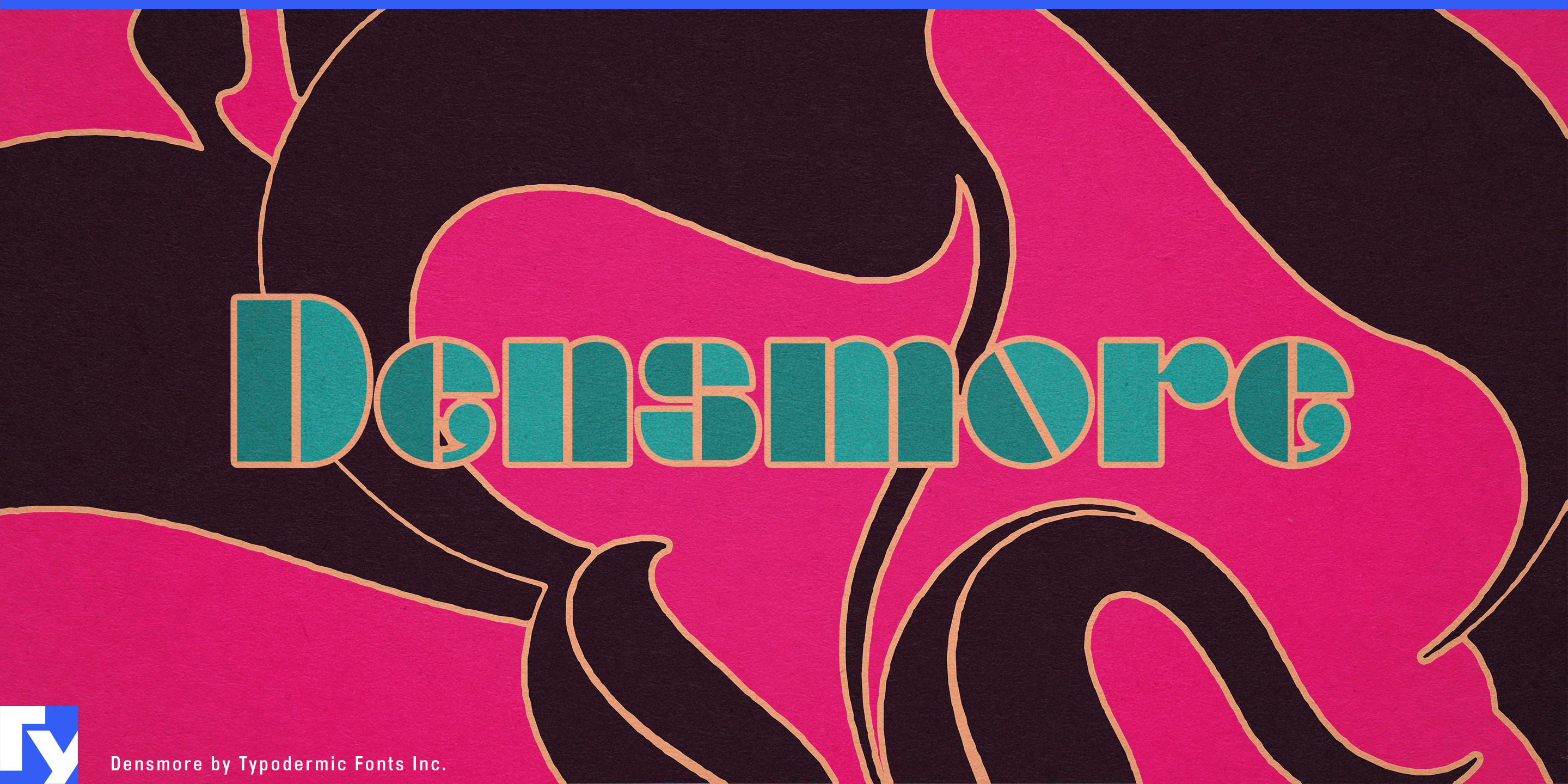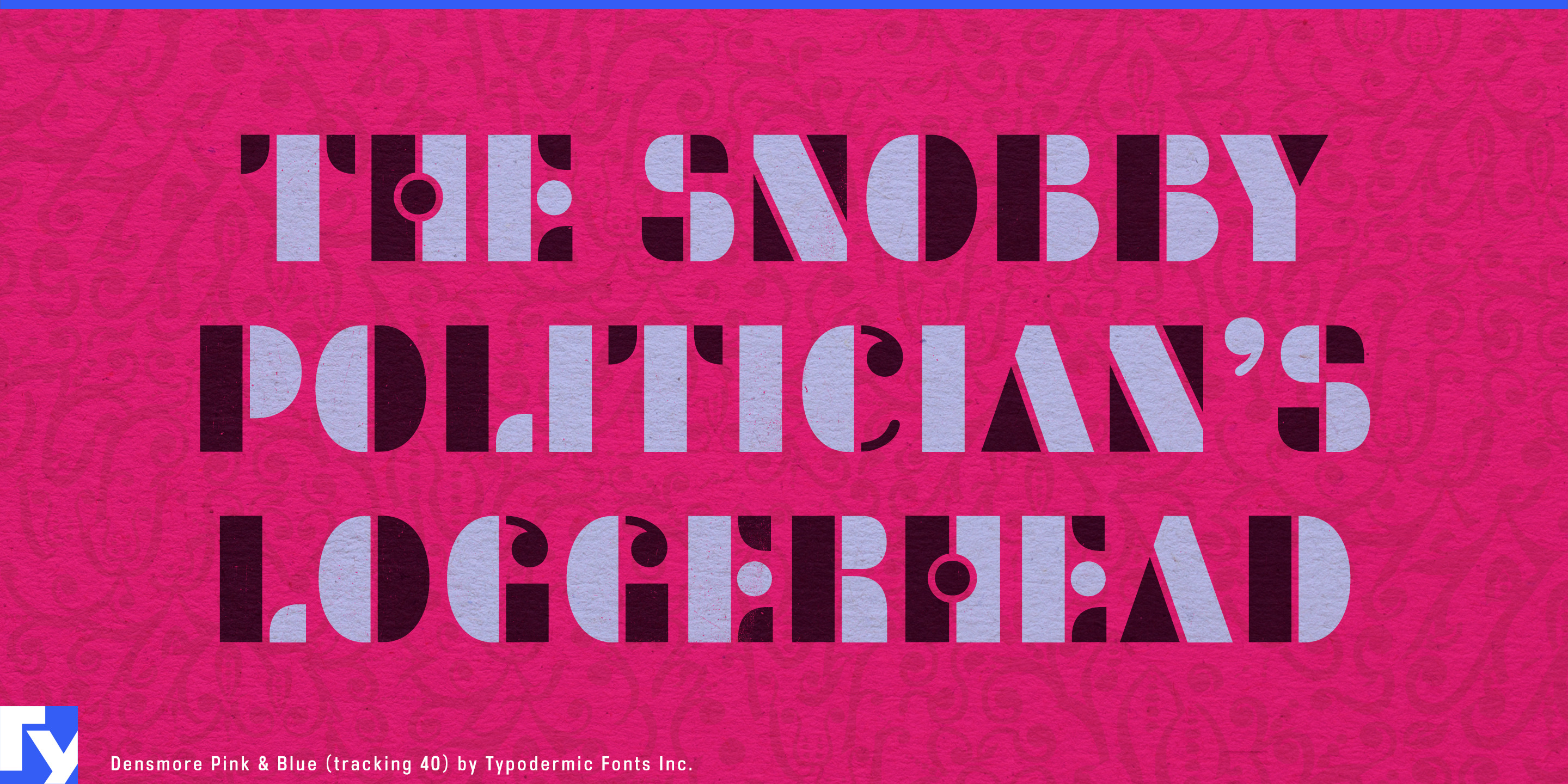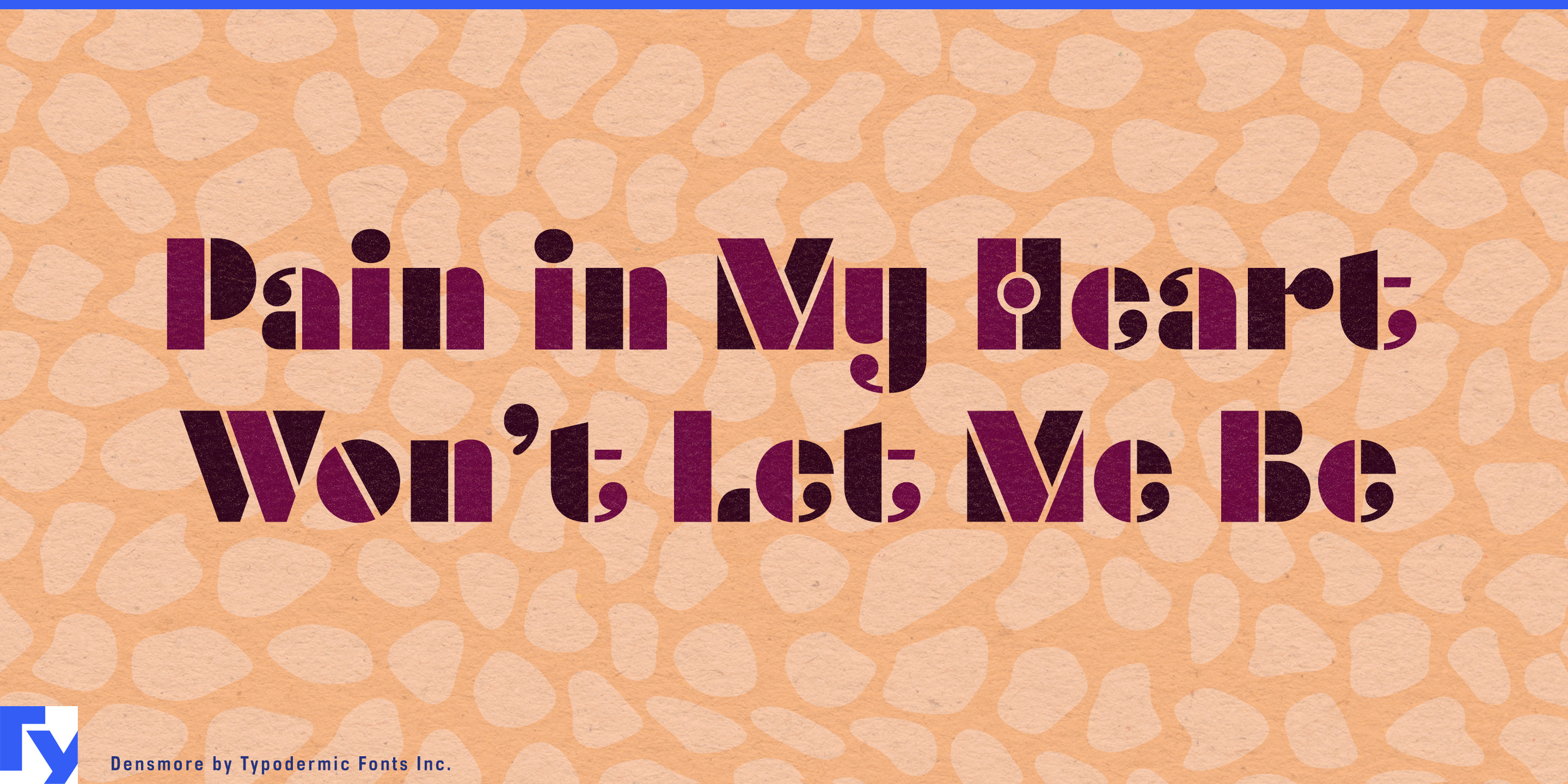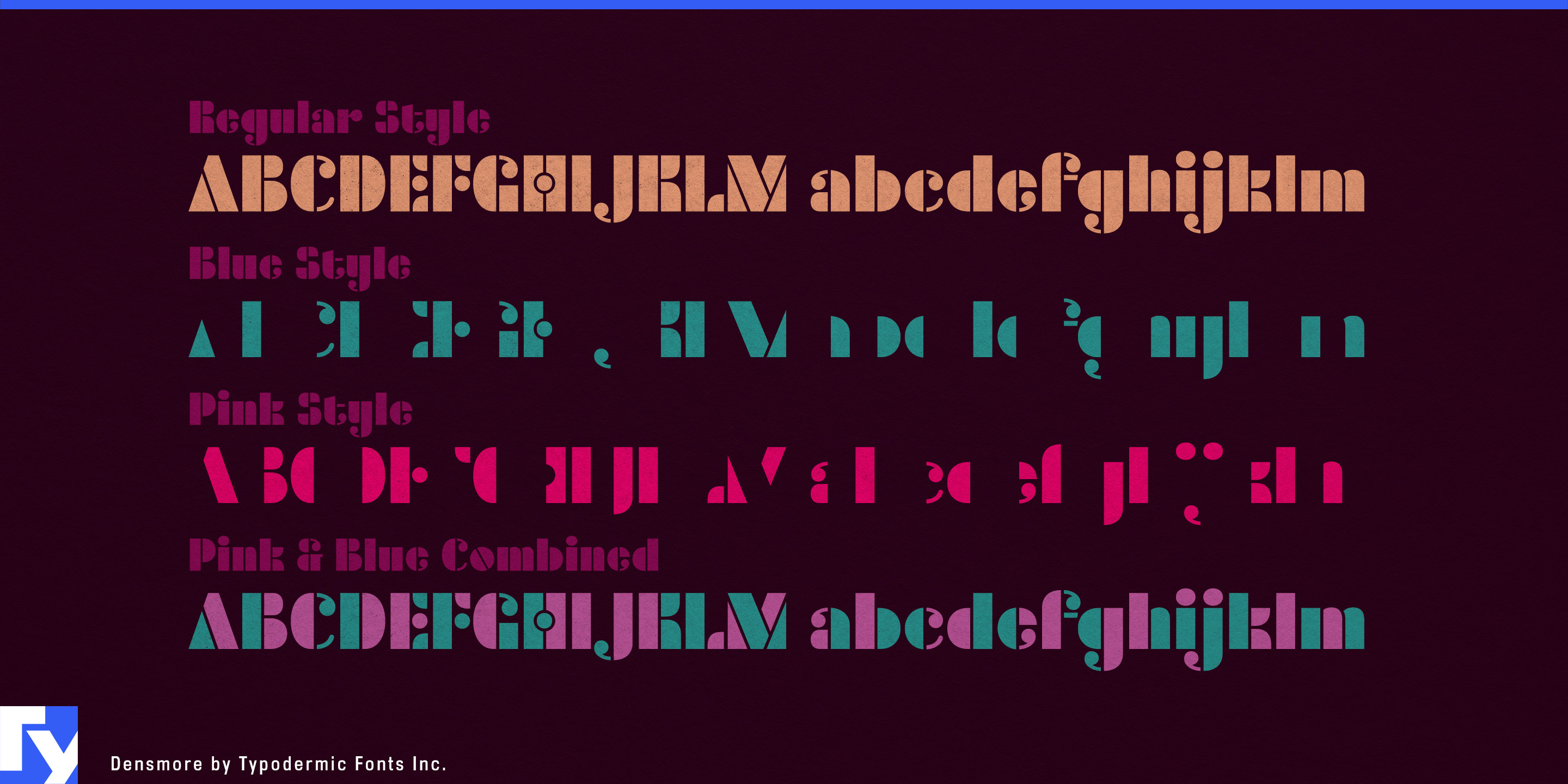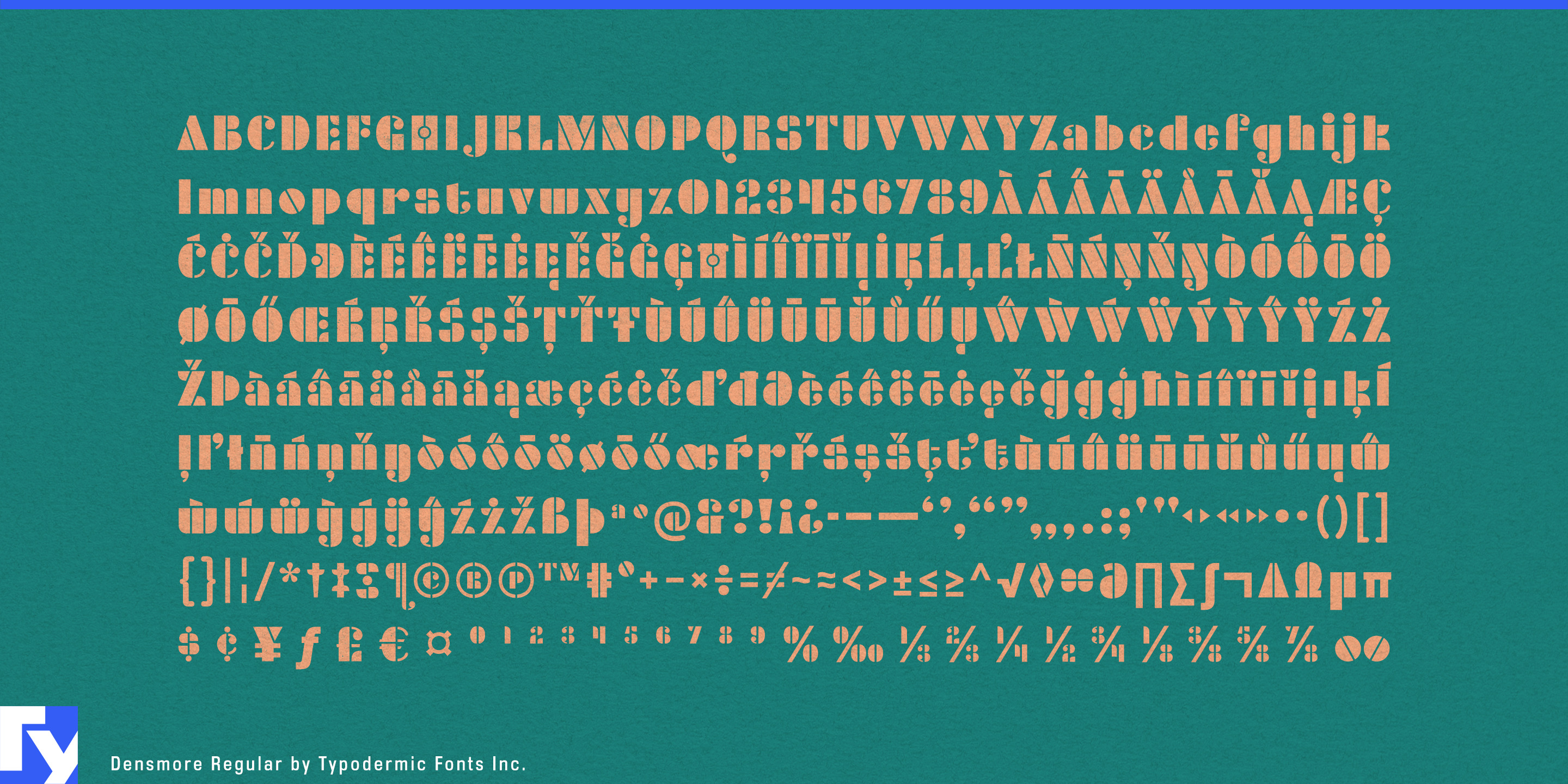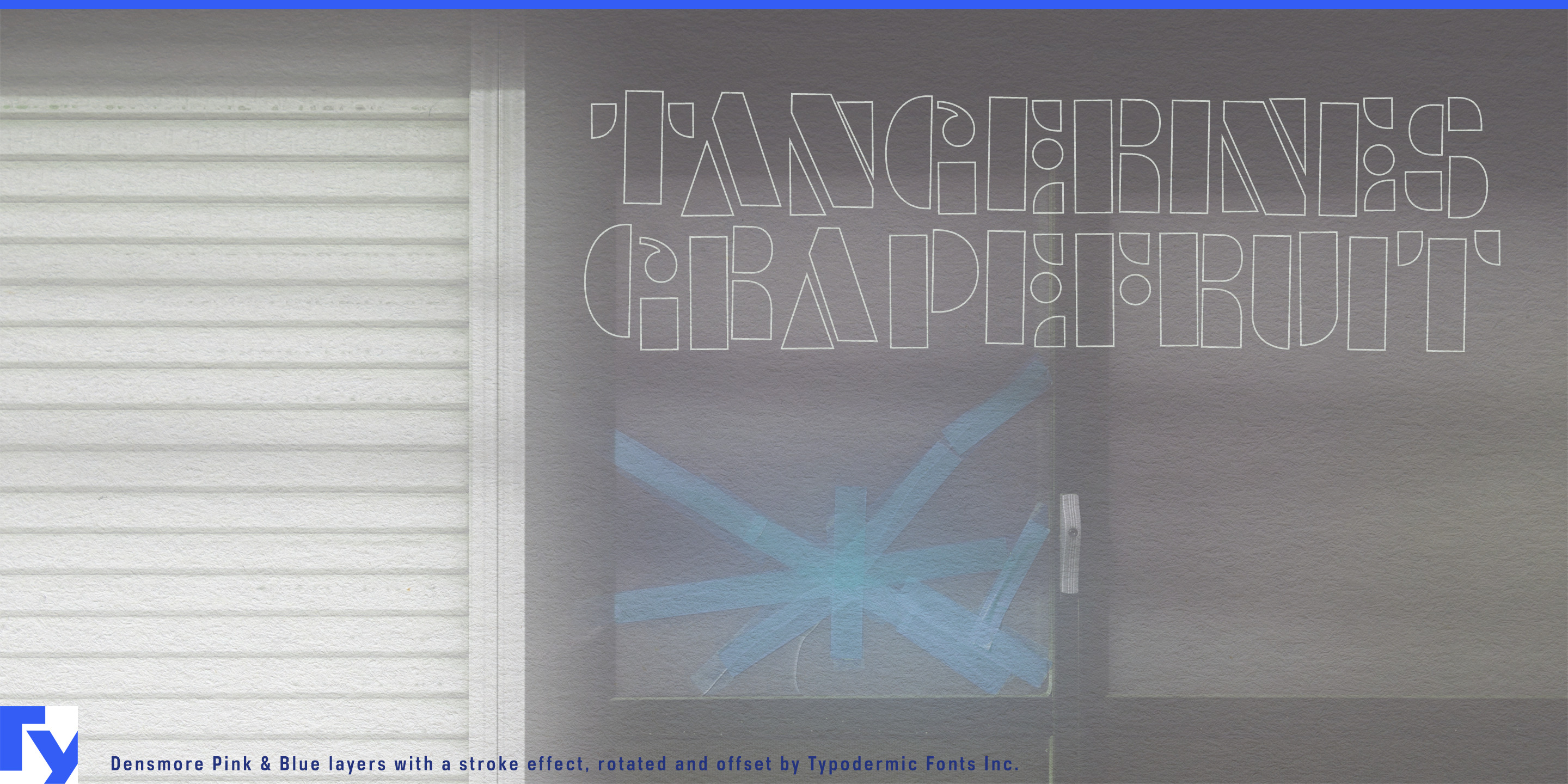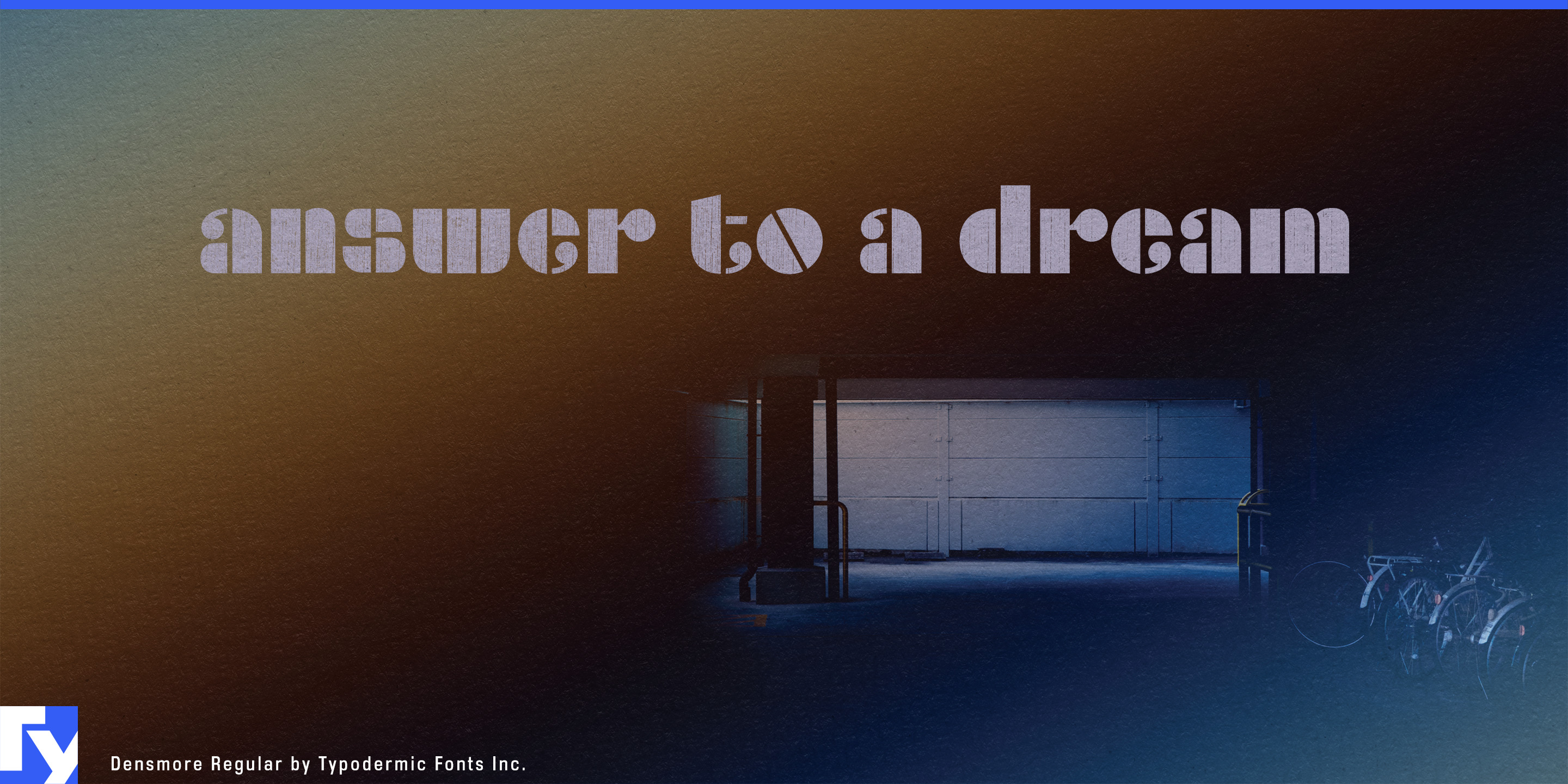
Densmore
Densmore becomes much more than a headline face when its two complementary layers are put to work. Pink and Blue divide each character into separate geometric pieces that can be registered into a complete letter, recolored independently, shifted out of alignment, animated apart, or assigned different printing treatments. The color separation is already built into the alphabet.
That makes Densmore particularly useful for consumer packaging built around strong color systems. Beverage ranges, confectionery, cosmetics, grooming products, fragrance extensions, and specialty foods can assign one layer to a constant brand color while the other changes by flavor, scent, formulation, or edition. Product names, carton fronts, bottle labels, multipacks, countertop displays, and retailer-exclusive packaging can stay typographically consistent while color does more of the navigational work.
The layers become especially useful when a job involves special production finishes. One part of the letter can take metallic ink while the other remains flat; foil can meet ordinary print, fluorescent ink can cut through black, or gloss and matte treatments can divide the same word into contrasting surfaces. Fragrance cartons, cosmetic boxes, limited-edition beverages, collector packaging, music box sets, invitations, and premium merchandise can use the letter structure itself to determine where those treatments meet.
Apparel and merchandise provide another natural setting. Tour shirts, festival merchandise, streetwear capsules, resort collections, record-label apparel, and entertainment properties can use Pink and Blue as ready-made two-color separations for chest prints, oversized backs, sleeves, caps, tote bags, bandanas, hangtags, and merch-table graphics. The layers can register cleanly or shift slightly to create deliberate misregistration.
Brand collaborations give the split a conceptual role as well as a visual one. A footwear partnership, fashion capsule, artist edition, sportswear collaboration, or co-branded product can assign one collaborator’s color to each layer across launch packaging, shoe boxes, garment graphics, retail installations, shopping bags, event screens, and limited-edition merchandise.
Motion graphics can push the construction further. Pink and Blue can slide into registration, drift apart, swap colors, pulse against one another, or reveal the finished word as the two structures converge. Densmore’s layered styles are graphic components: register them, misregister them, recolor them independently, animate them independently, or give each half a different physical finish.